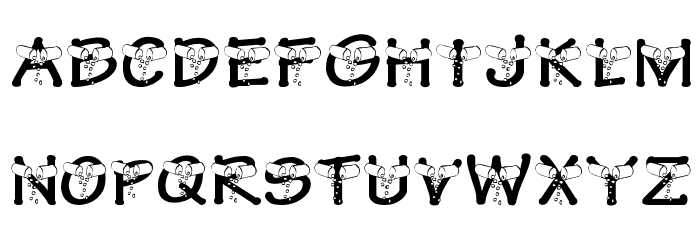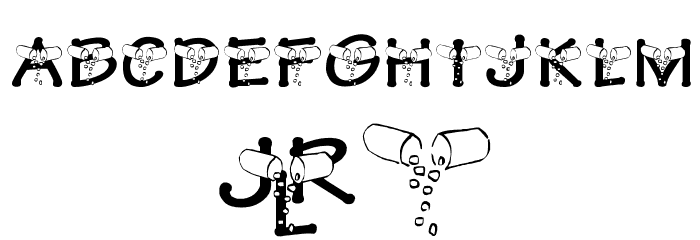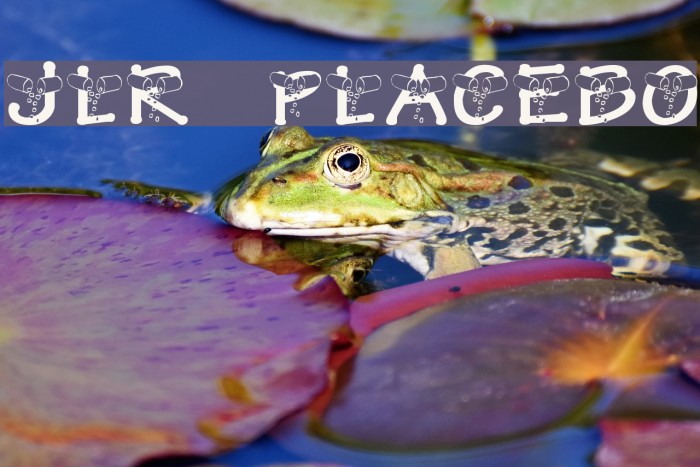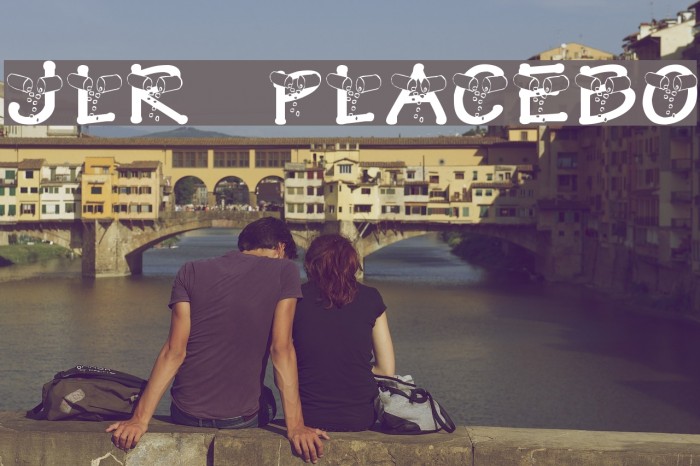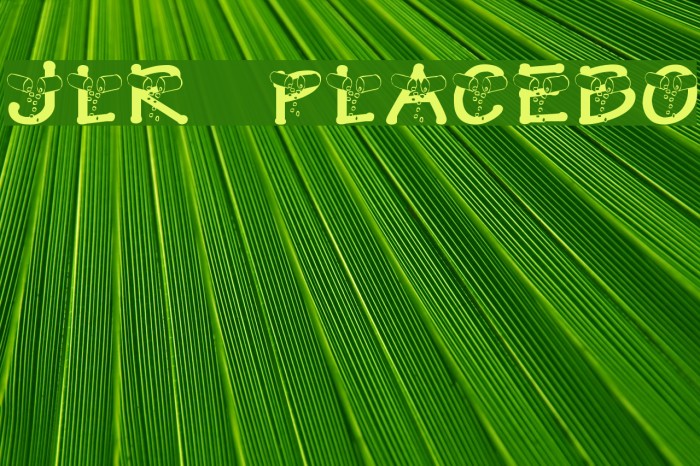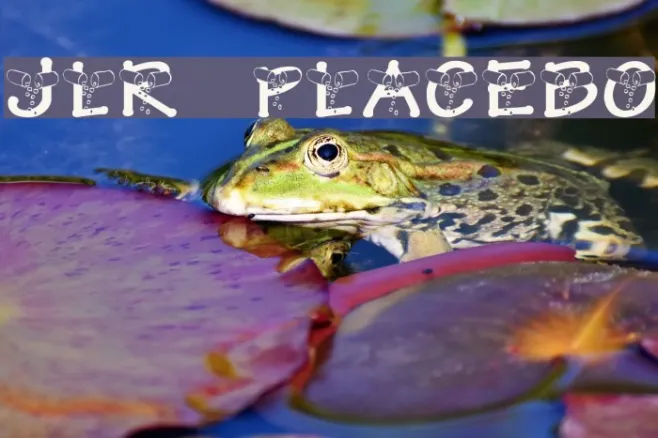
JLR Placebo Font
This playful and whimsical font features characters that are creatively integrated with cartoonish elements, such as faces and pills, adding a humorous and lighthearted touch. The letters are bold and rounded, with each character having a unique personality. The design is highly decorative, making it stand out with its imaginative and fun style. The font is perfect for projects that require a sense of humor and creativity, such as children's books, comic strips, or playful branding. Its distinctive appearance ensures that it captures attention and adds a unique flair to any design.
A whimsical, cartoonish font with bold, rounded characters featuring playful elements.
- Font: JLR Placebo
- Proposed Projects: Ideal for children's books, comic strips, playful branding, and creative posters.
- Overall Style: Playful, Whimsical, Cartoonish